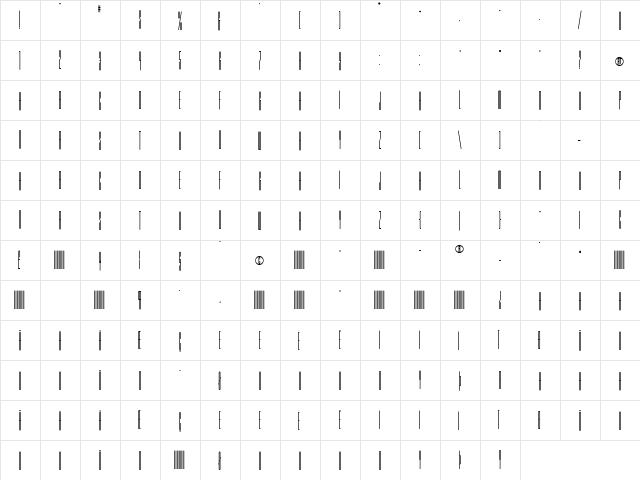
Barcode Regular
Design Context for Barcode Typeface
Barcode uses fixed-width spacing throughout, giving it the structured, systematic character associated with coding environments and technical documentation.
Well-suited to data-driven dashboards, coding tutorials, and any design that wants to reference the world of programming.